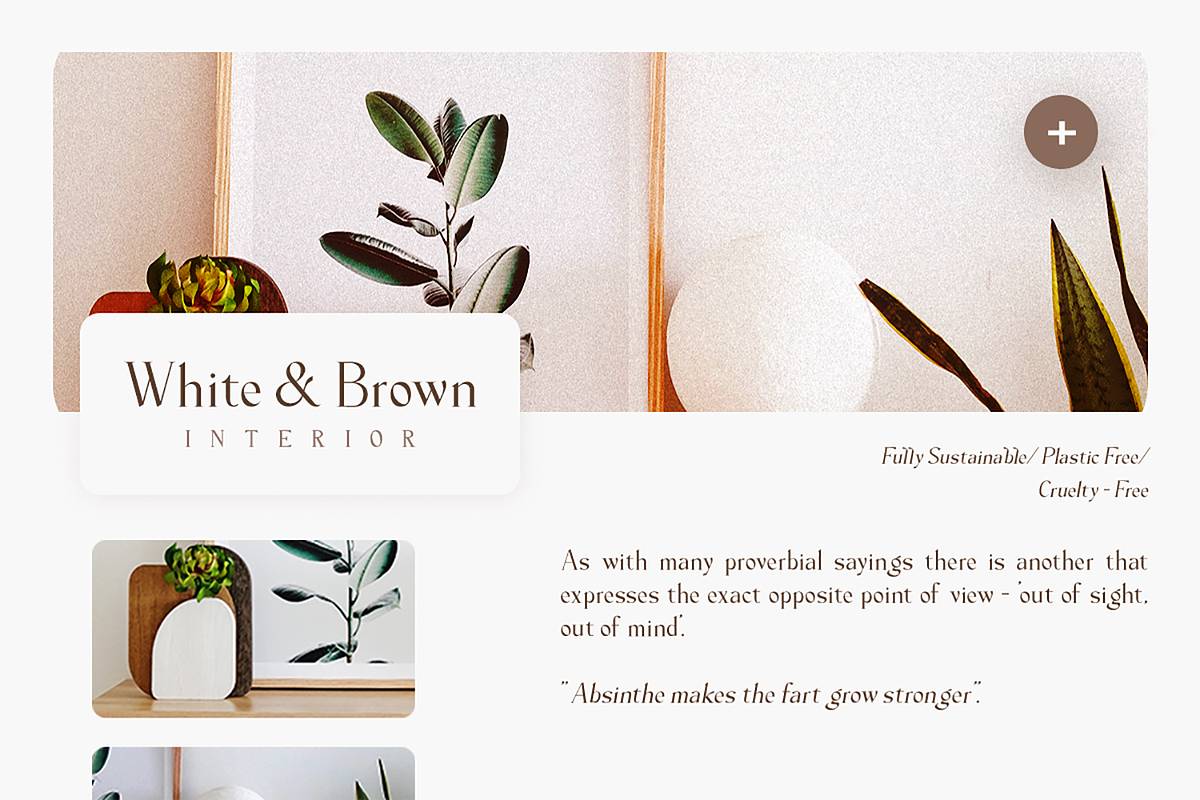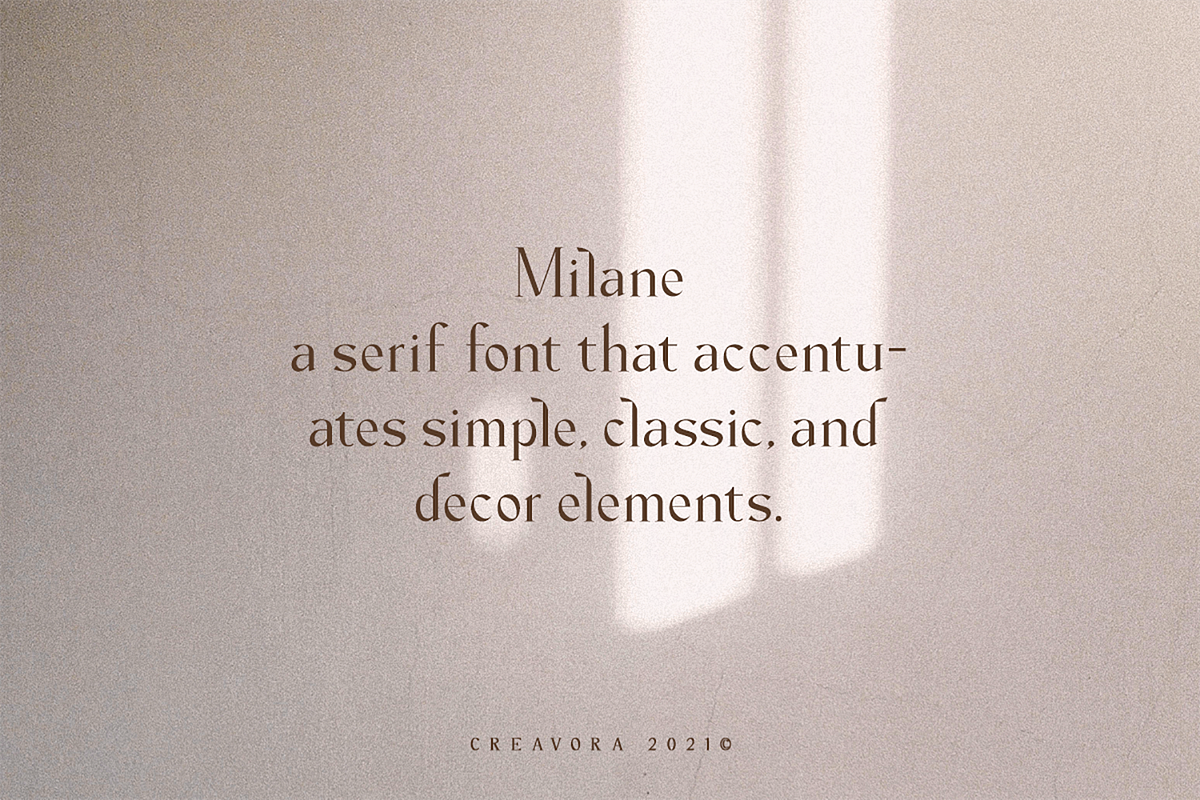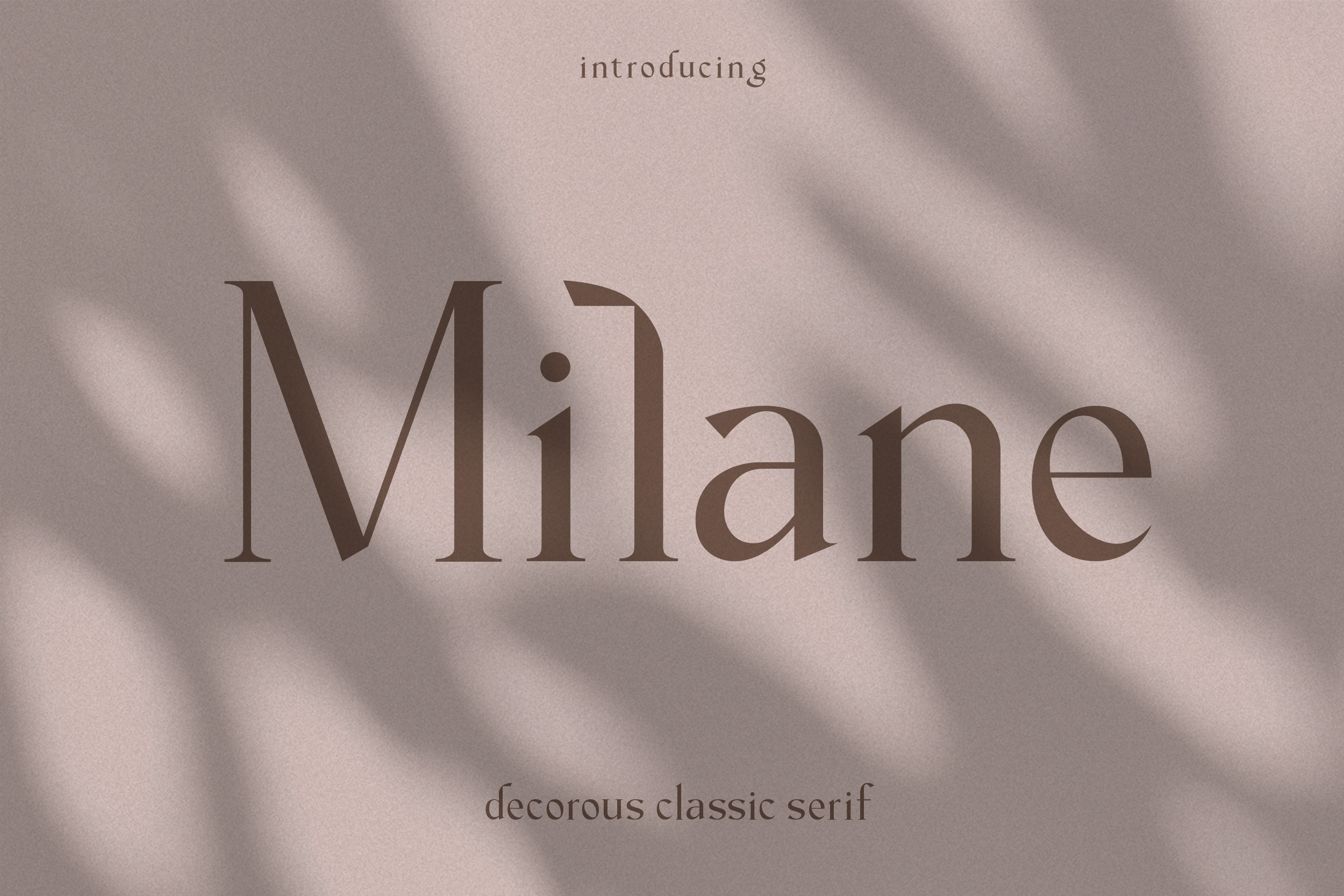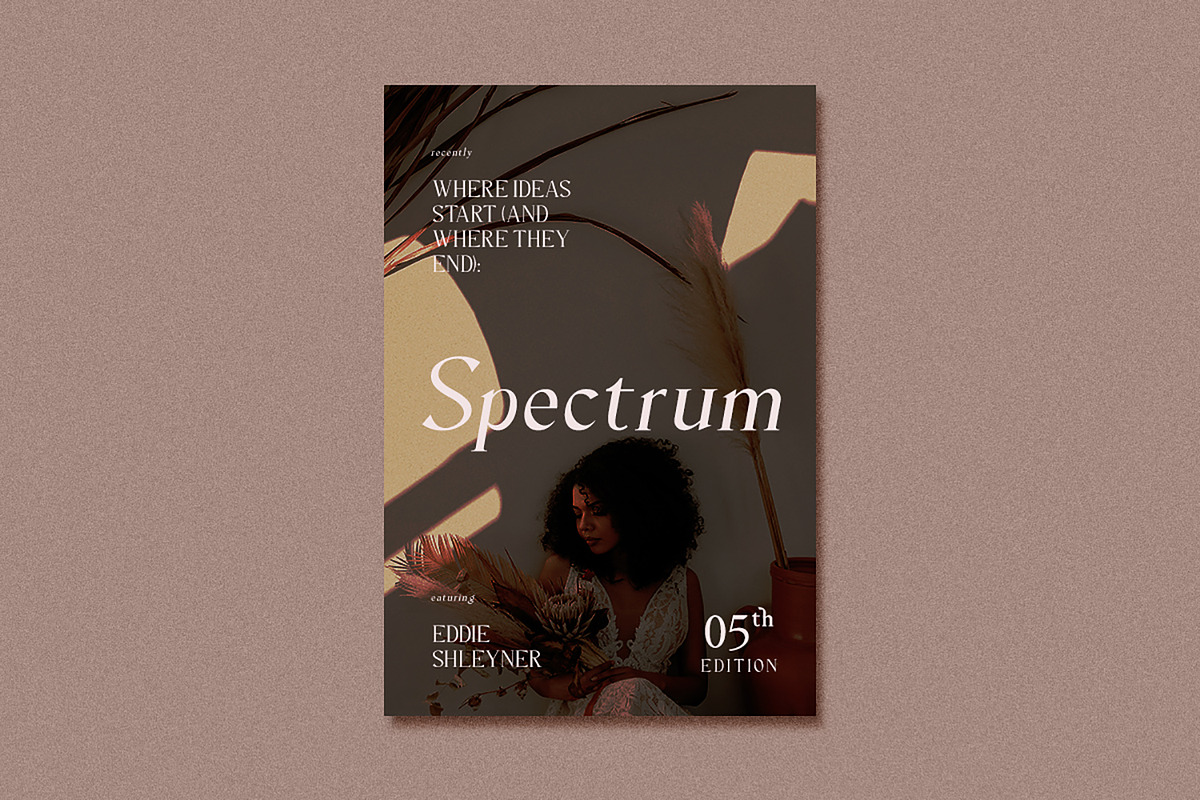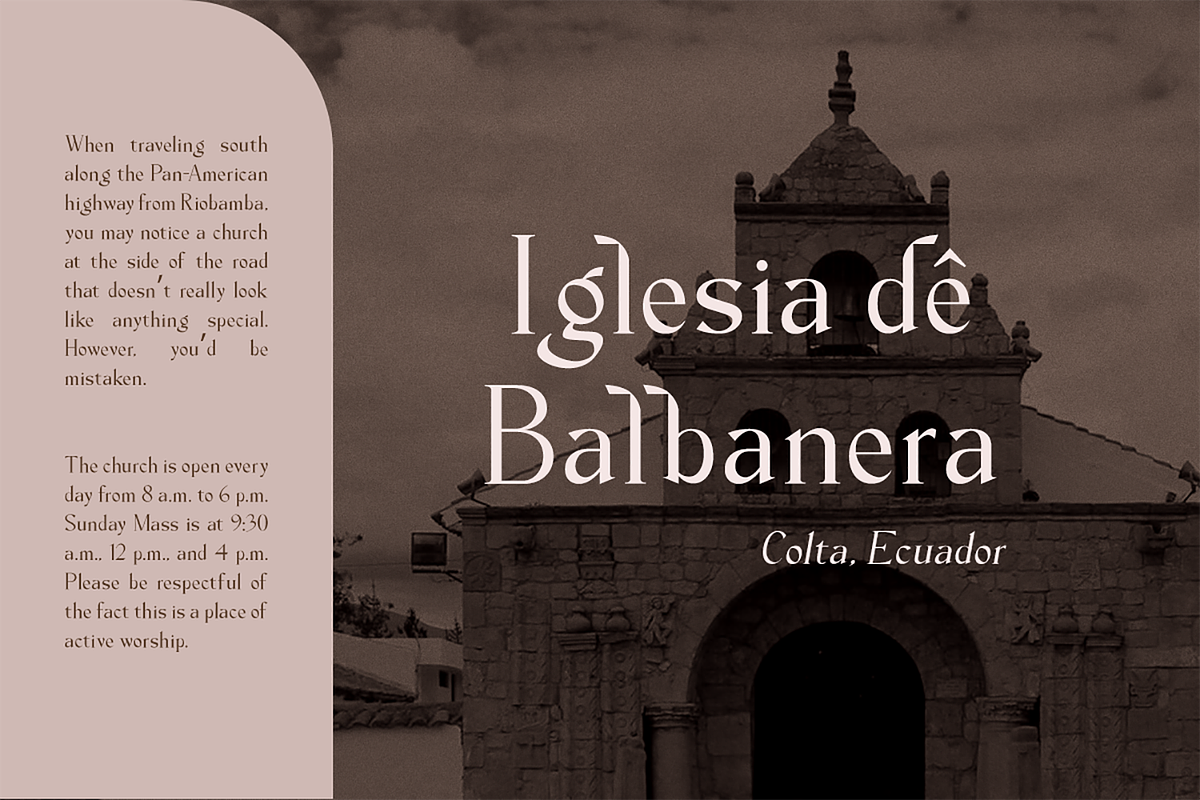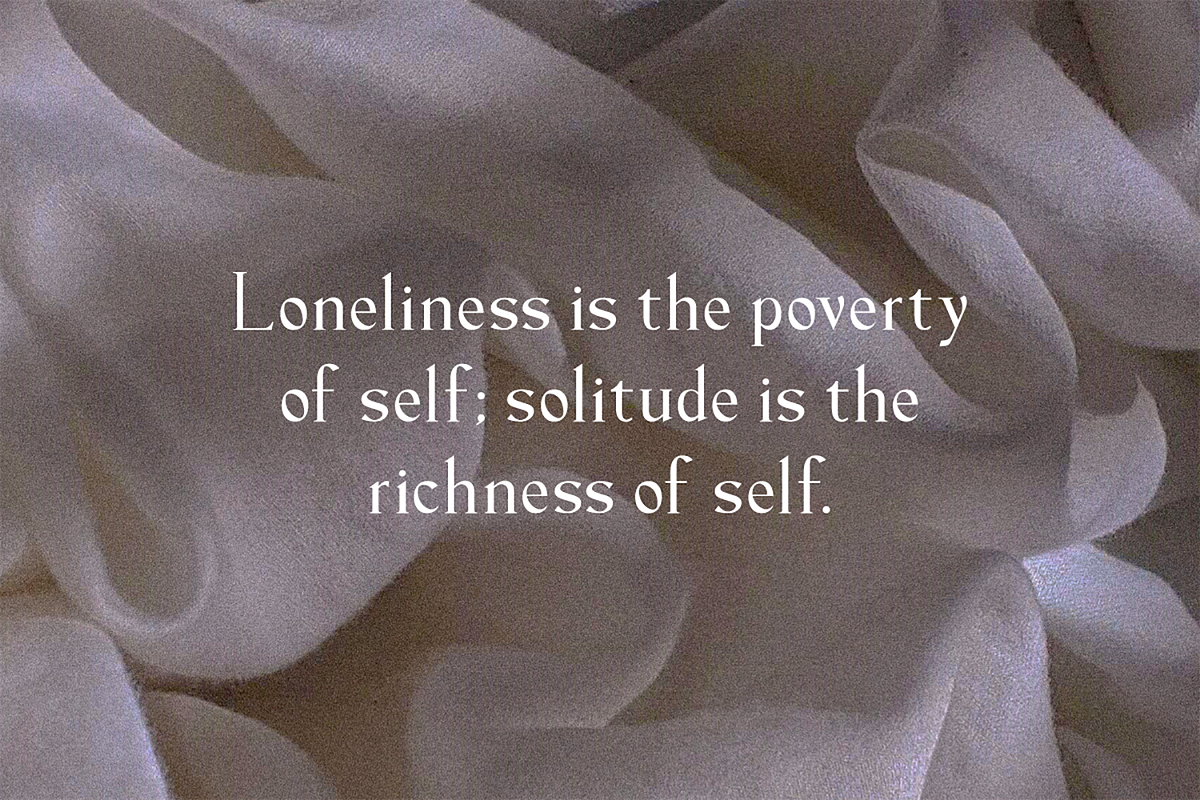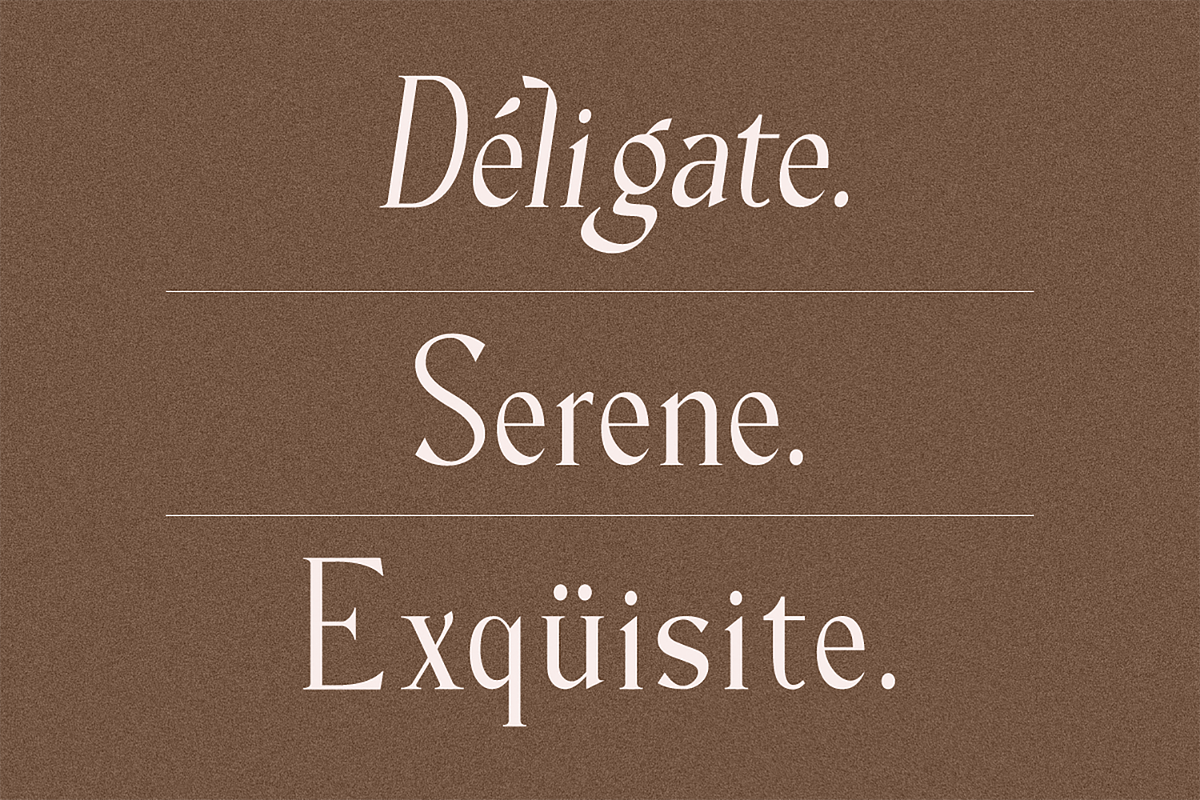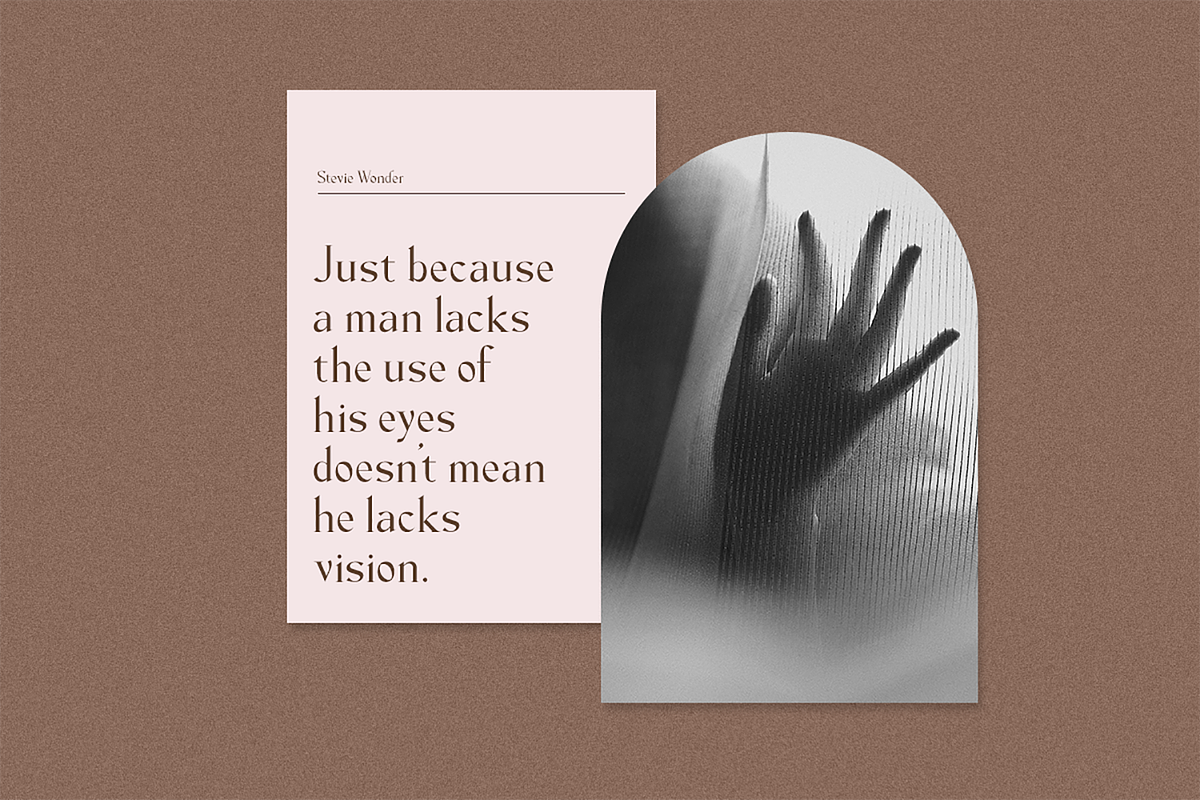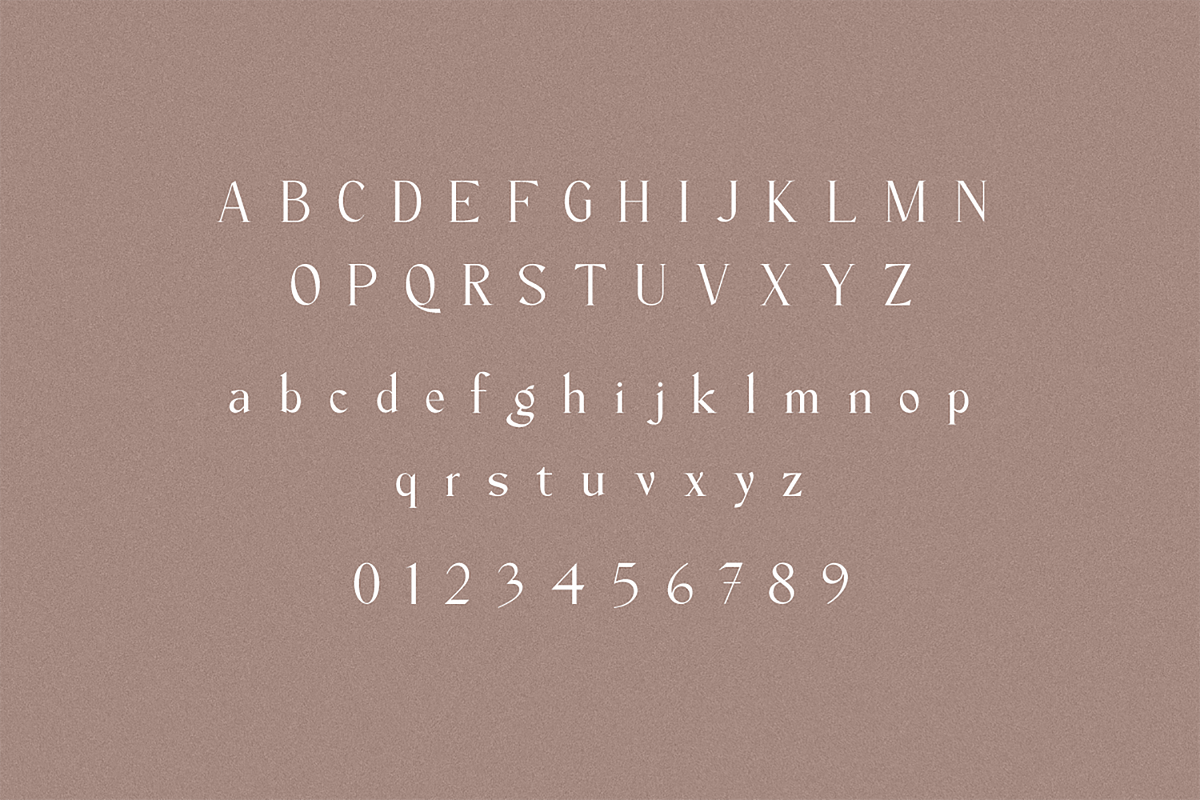
Milane - Classic Serif Font
Introducing Milane Font
Milane is a modern serif font that is elegant and feminine with contrasting thick and thin lines. This font is suitable to be applied to beauty magazine logos, beauty, and fashion product logos, writing for creator content, titles on layouts, and other luxurious things.